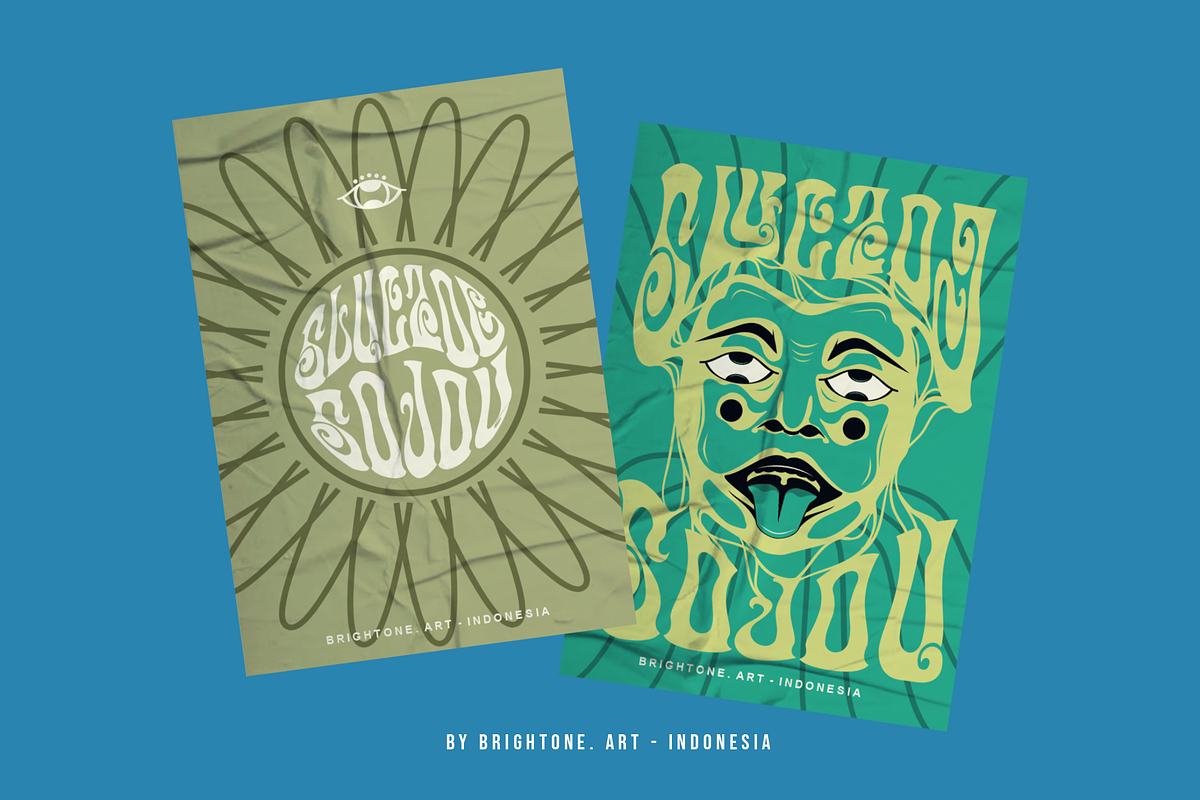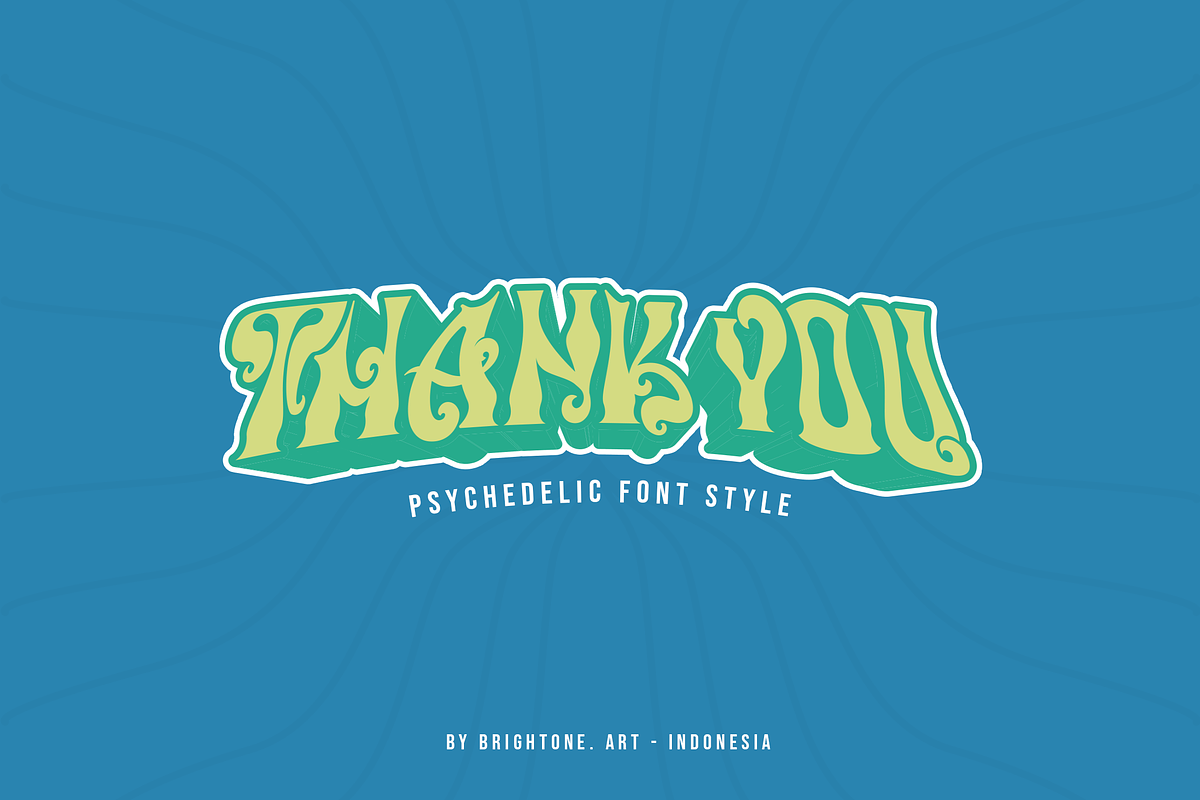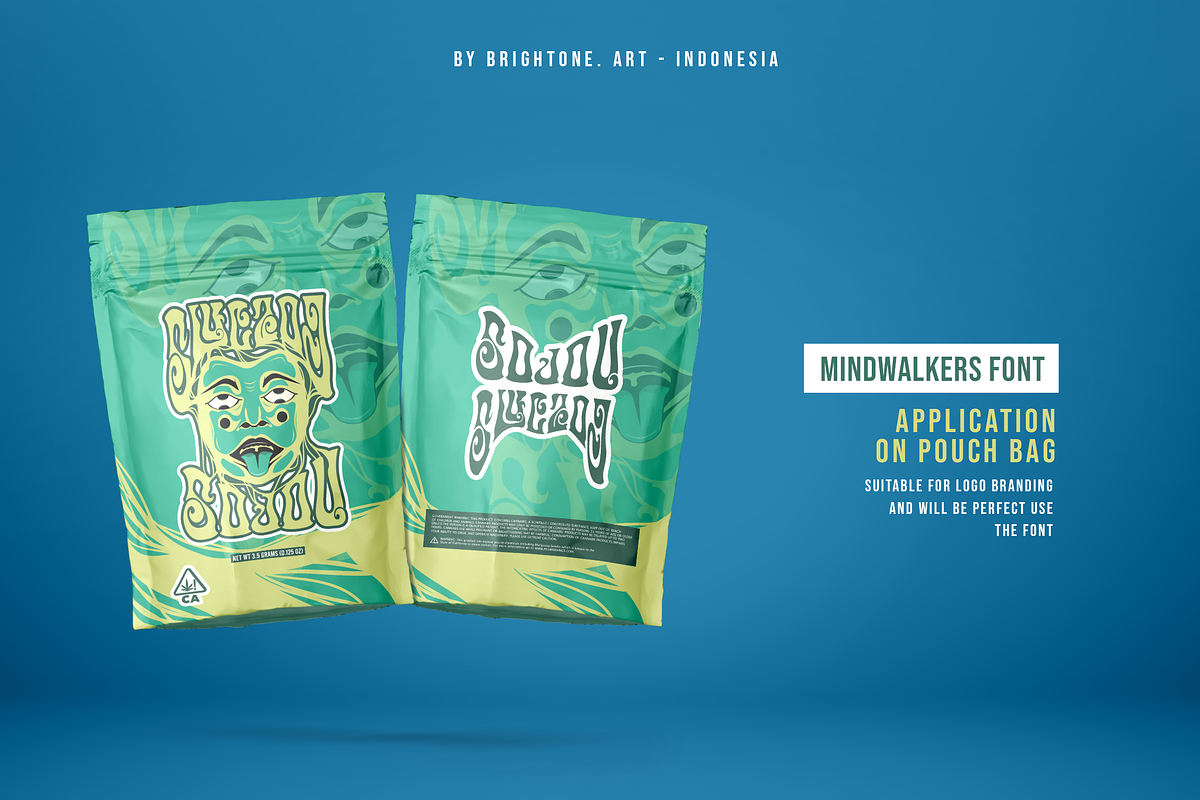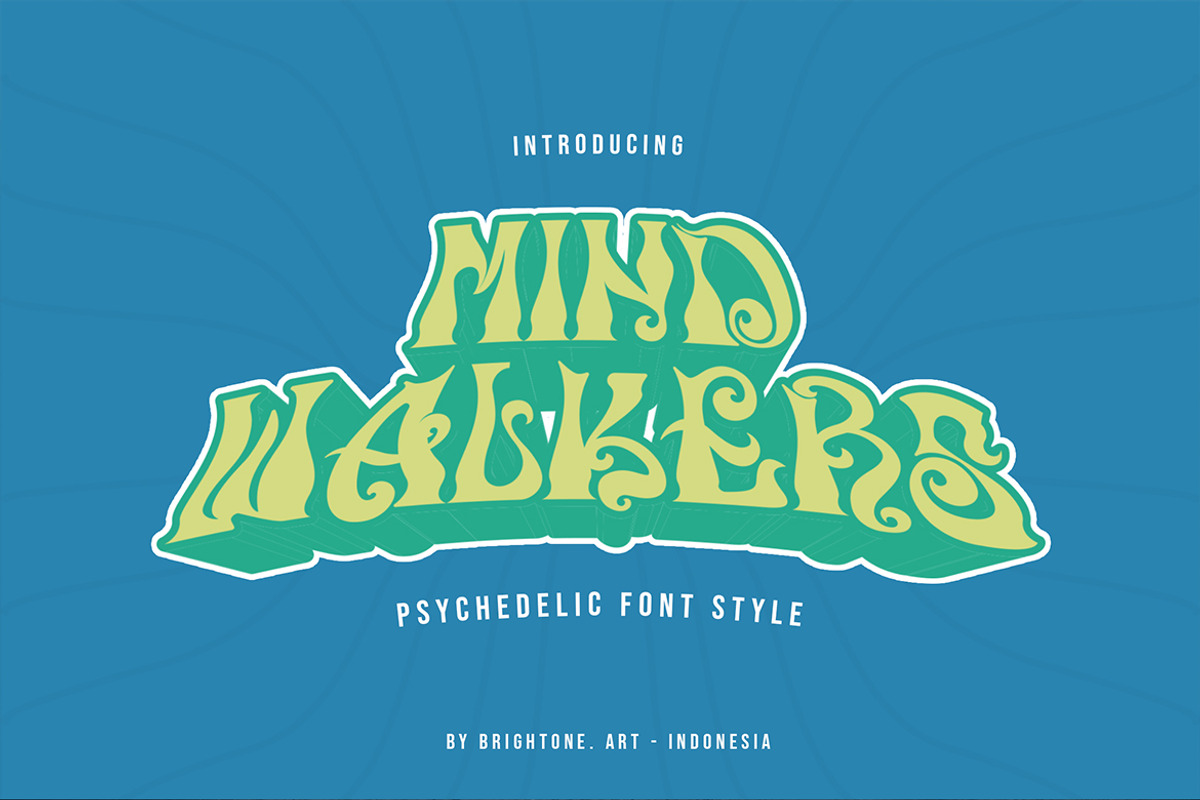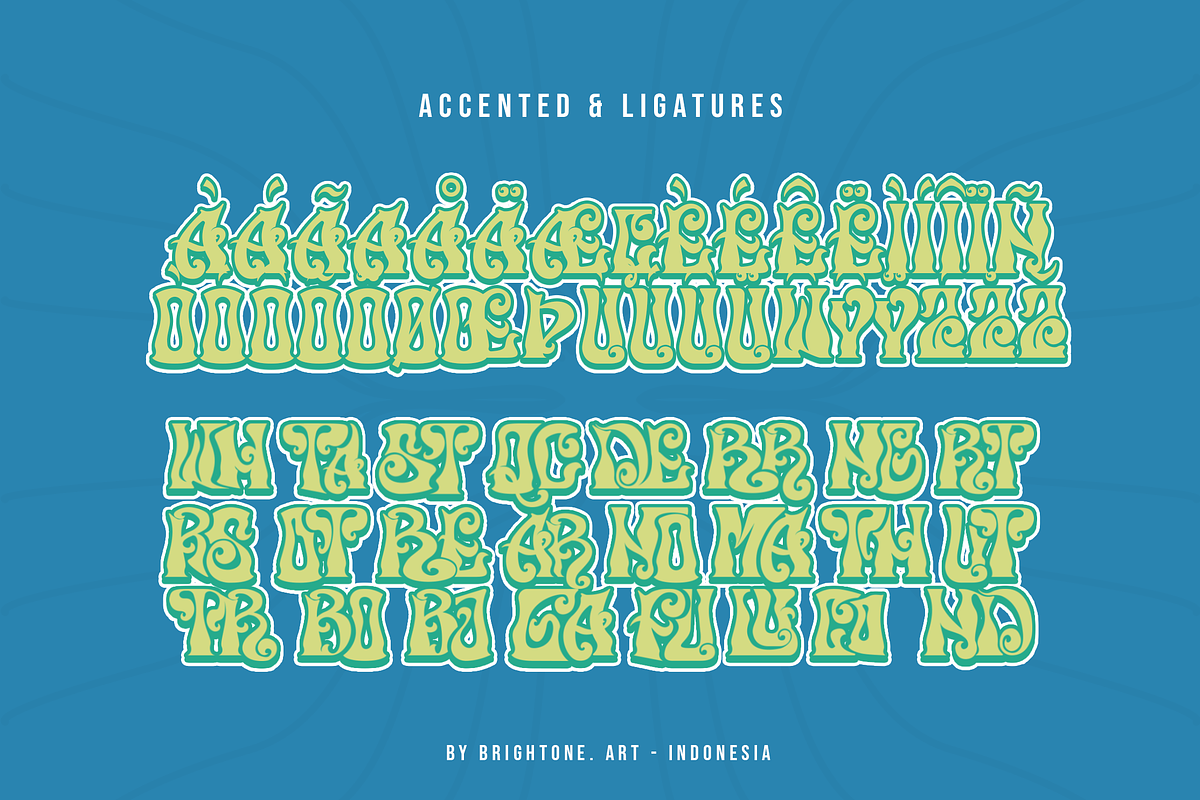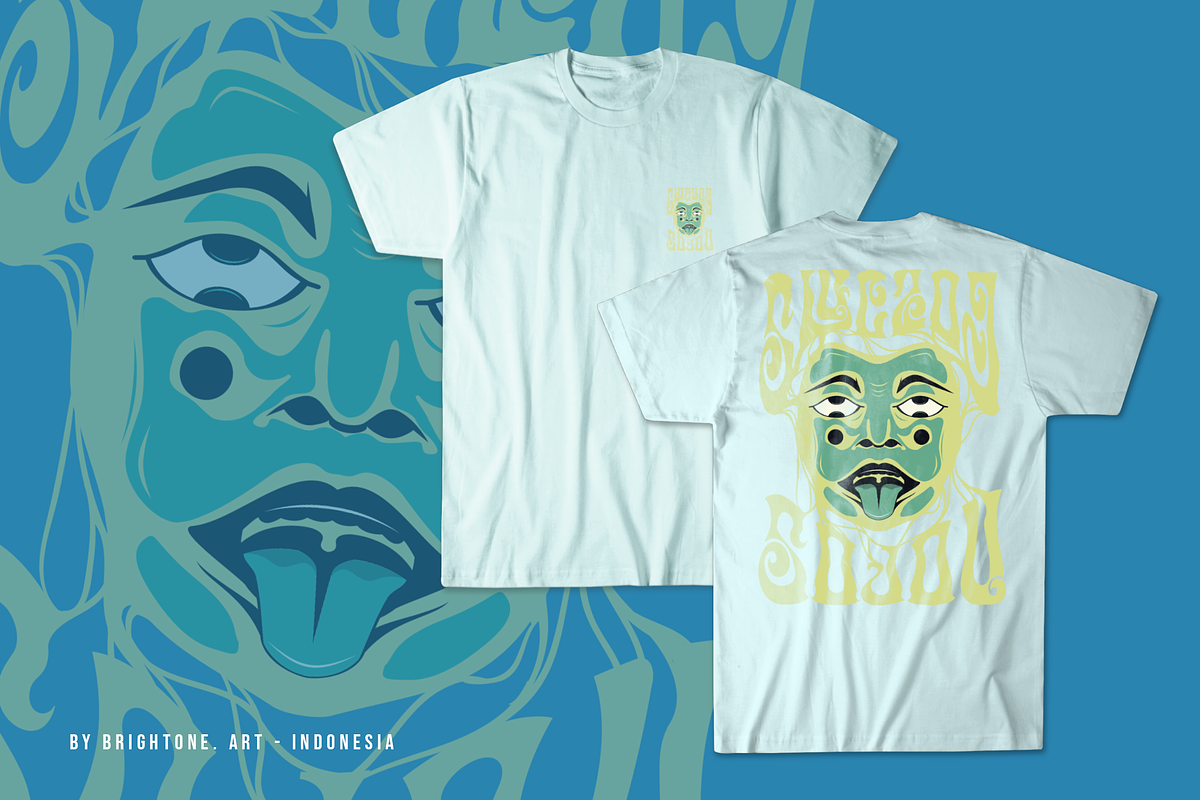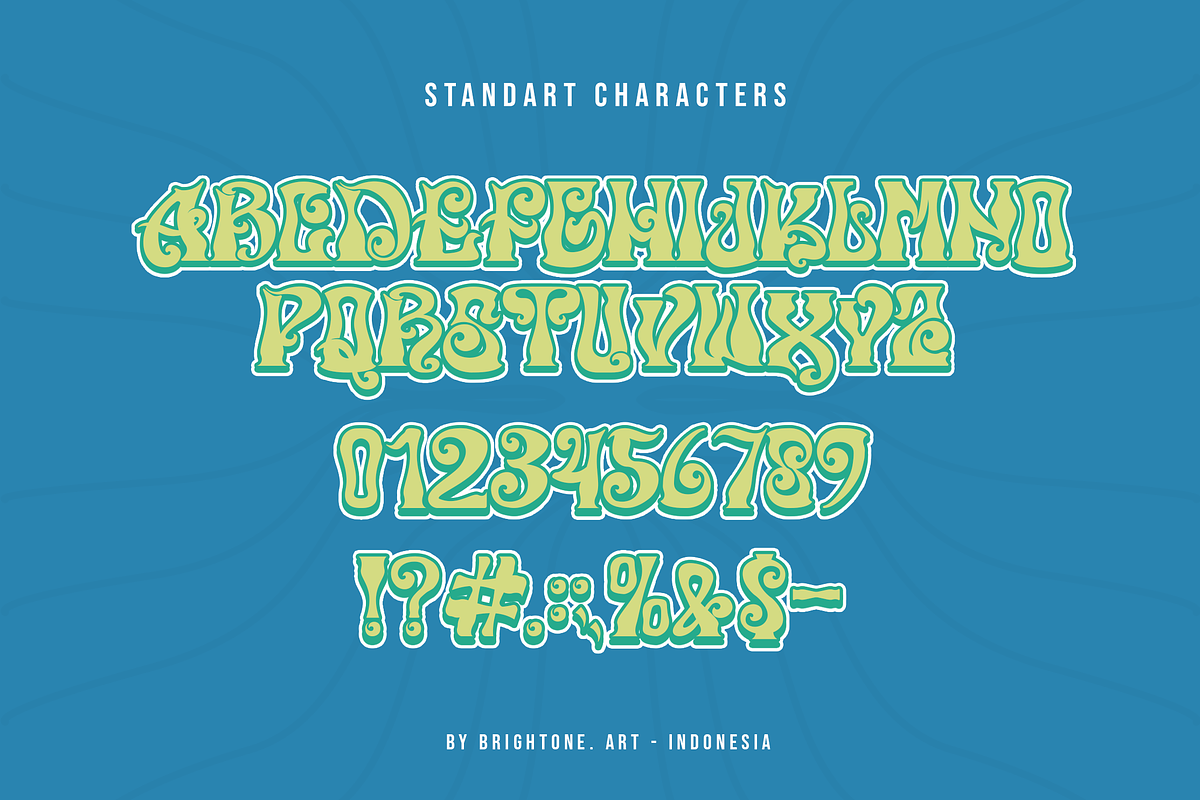
Mind walkers - Psychedelic
Mind Walkers is Psychedelic font with good style includes uppercase letters, numerals, a large range of punctuation and multilingual support. Psychedelic style for your logo, posters, pouch bag design , label, sticker, branding for your brand and many more